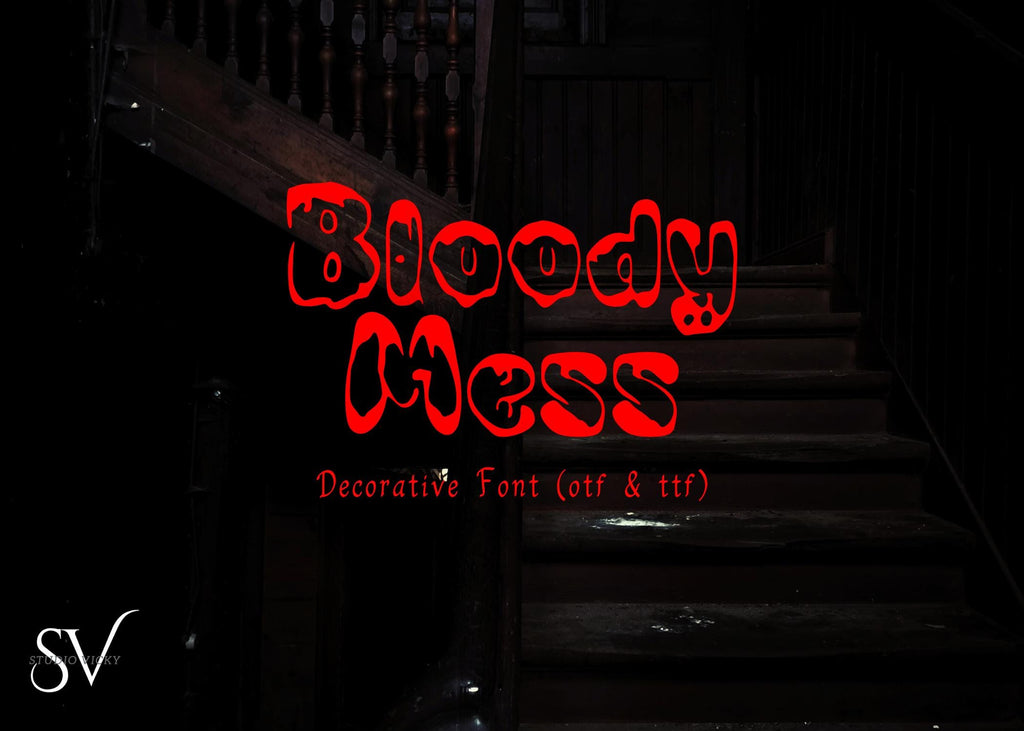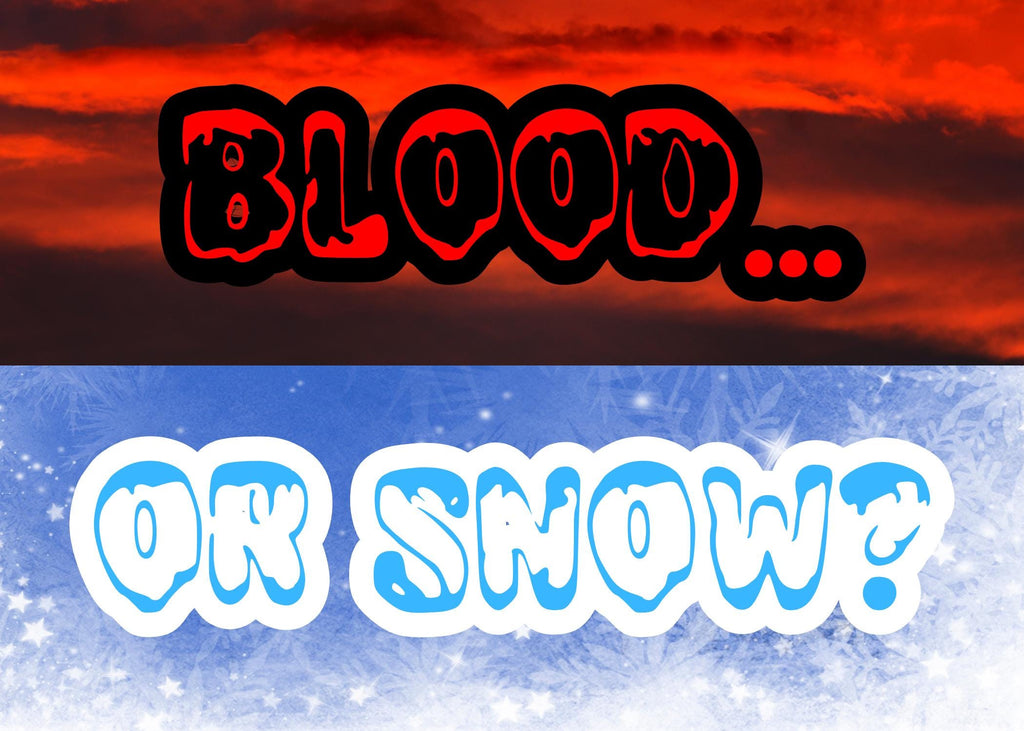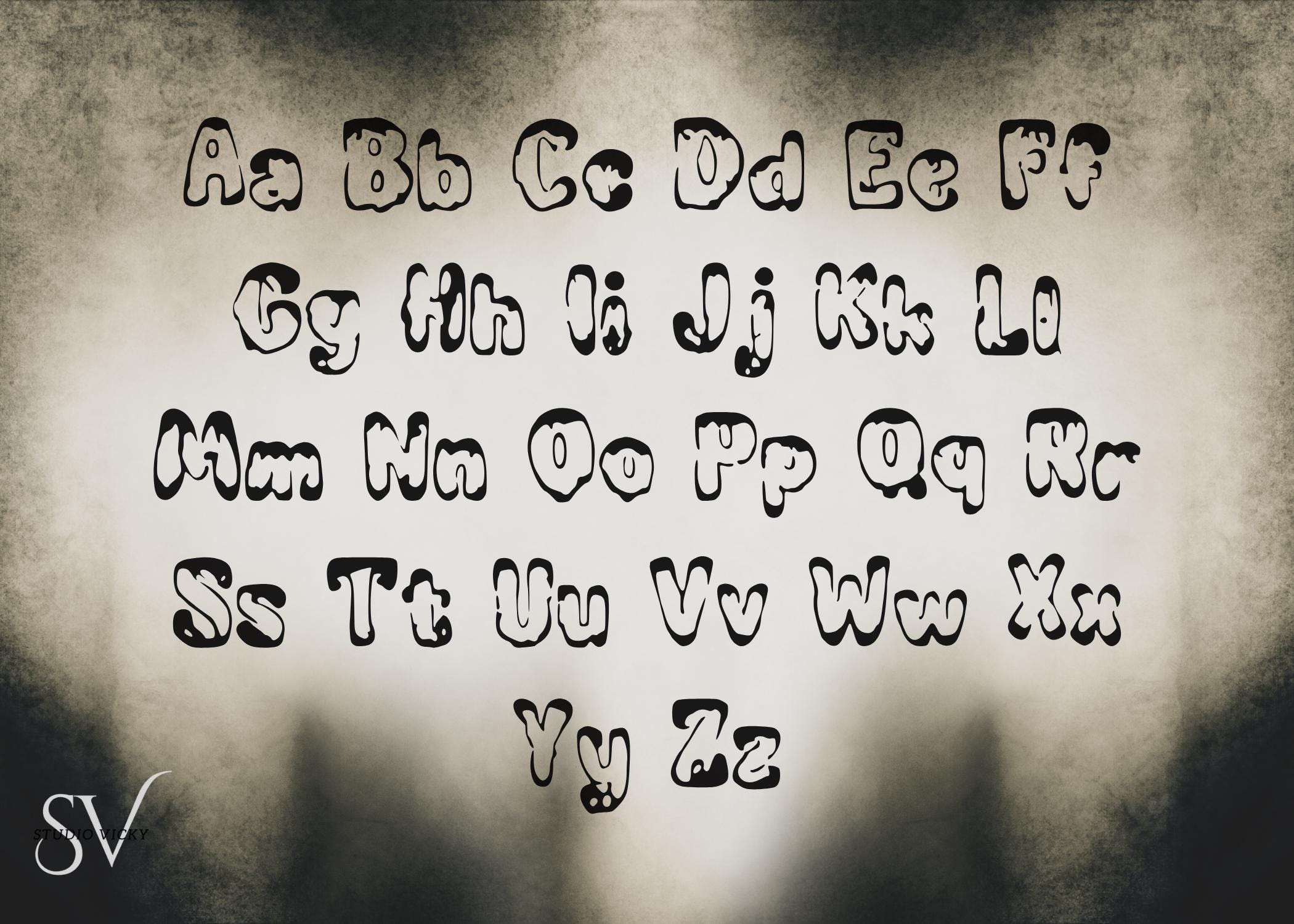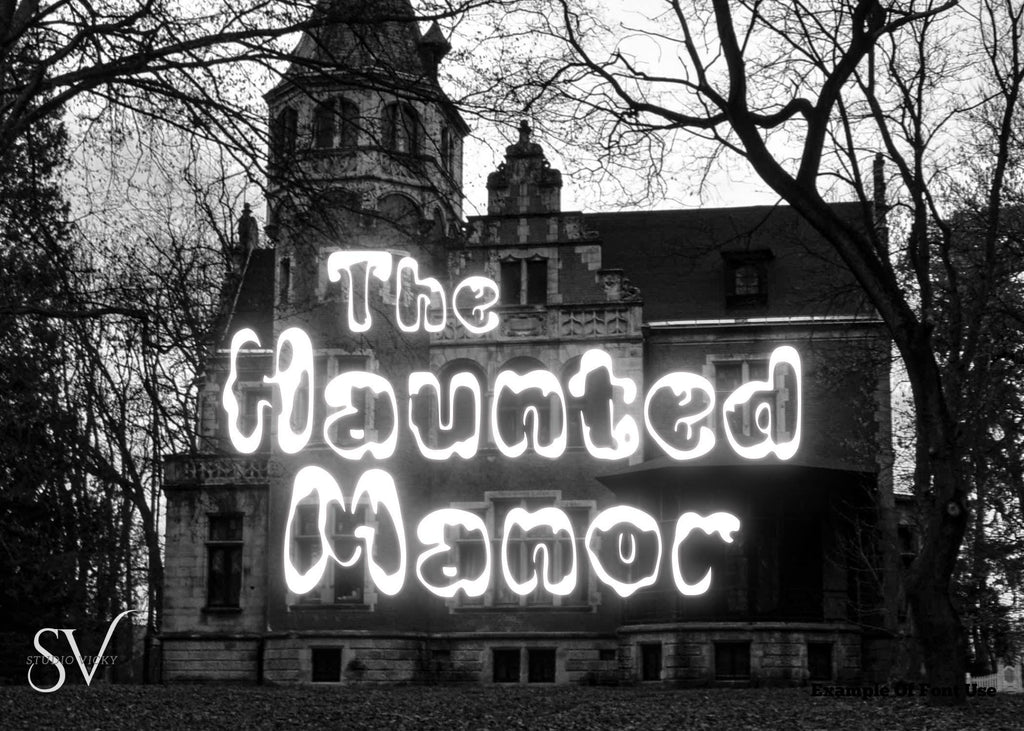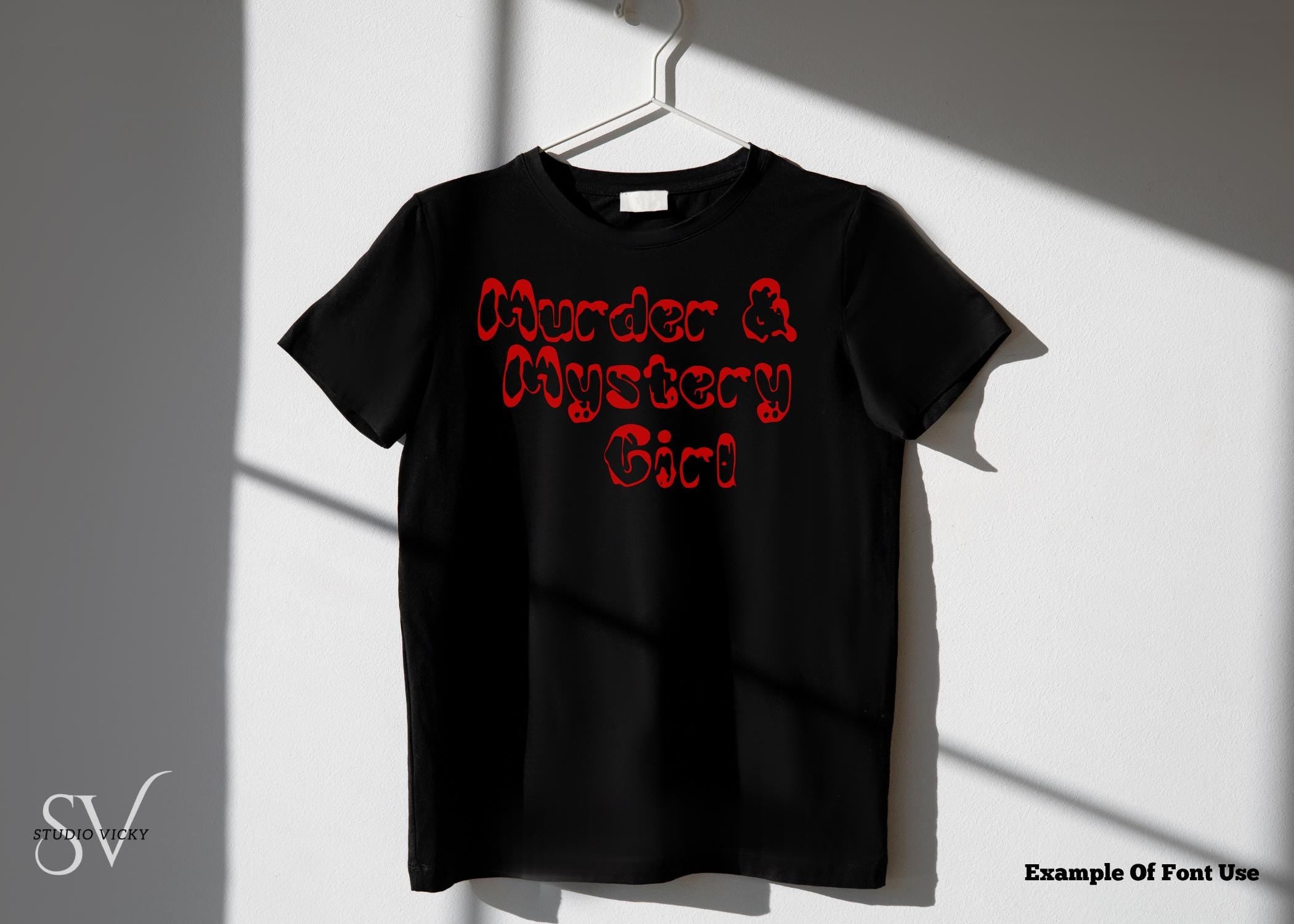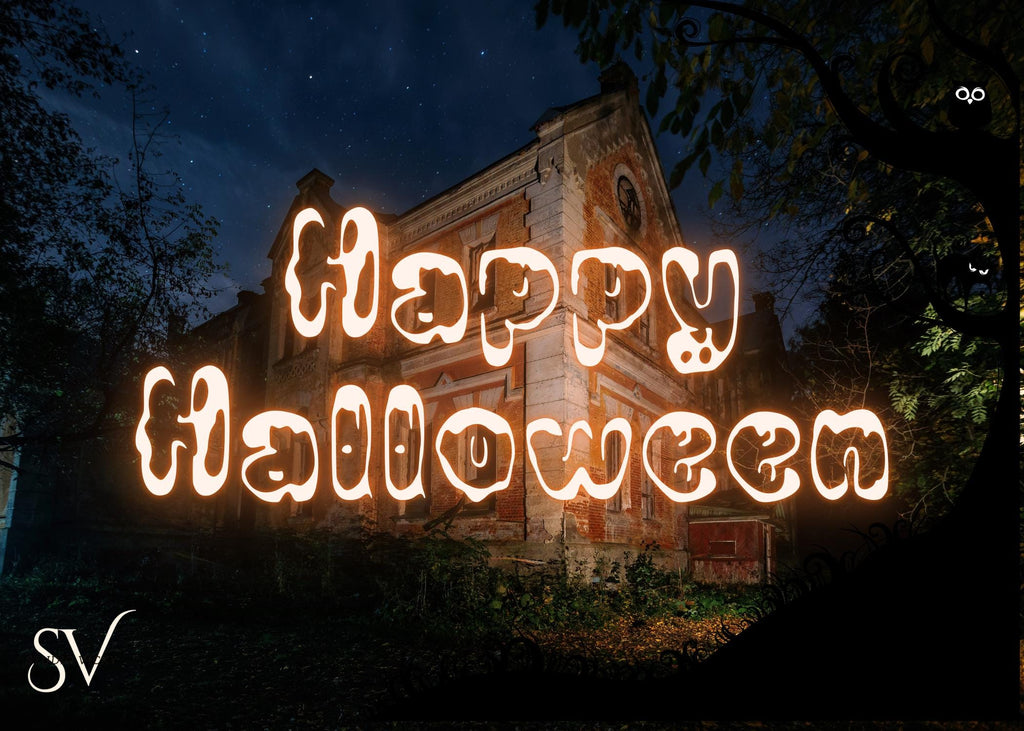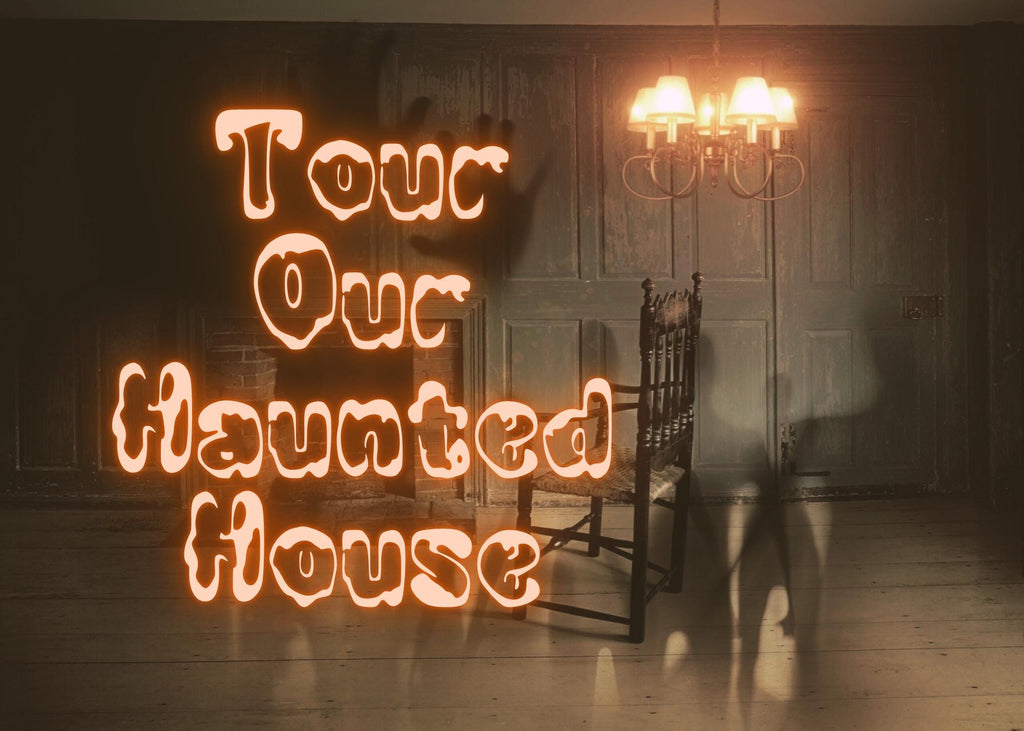
Get ready to make a scene this spooky season! Bloody Mess is a bold, dripping horror font that oozes with creepy charm! Perfect for Halloween party flyers, horror movie titles, haunted house decor, and spooky merch, this typeface is pure scream-fest energy. With thick, gooey drips and messy blotches, it’s the ultimate font for blood-curdling impact.
Whether you're designing spine-chilling posters, slime-covered labels, or eerie invitations, Bloody Mess delivers a splash of frightful fun with every letter.
☠️ Features:
Grungy drippy style letterforms
High contrast horror styling
Great for print or digital projects—easy to cut, bold to read
Bring the gore... Bloody Mess is here to make your Halloween designs unforgettable!
Or you know... maybe it's snow the next month... (wink wink)